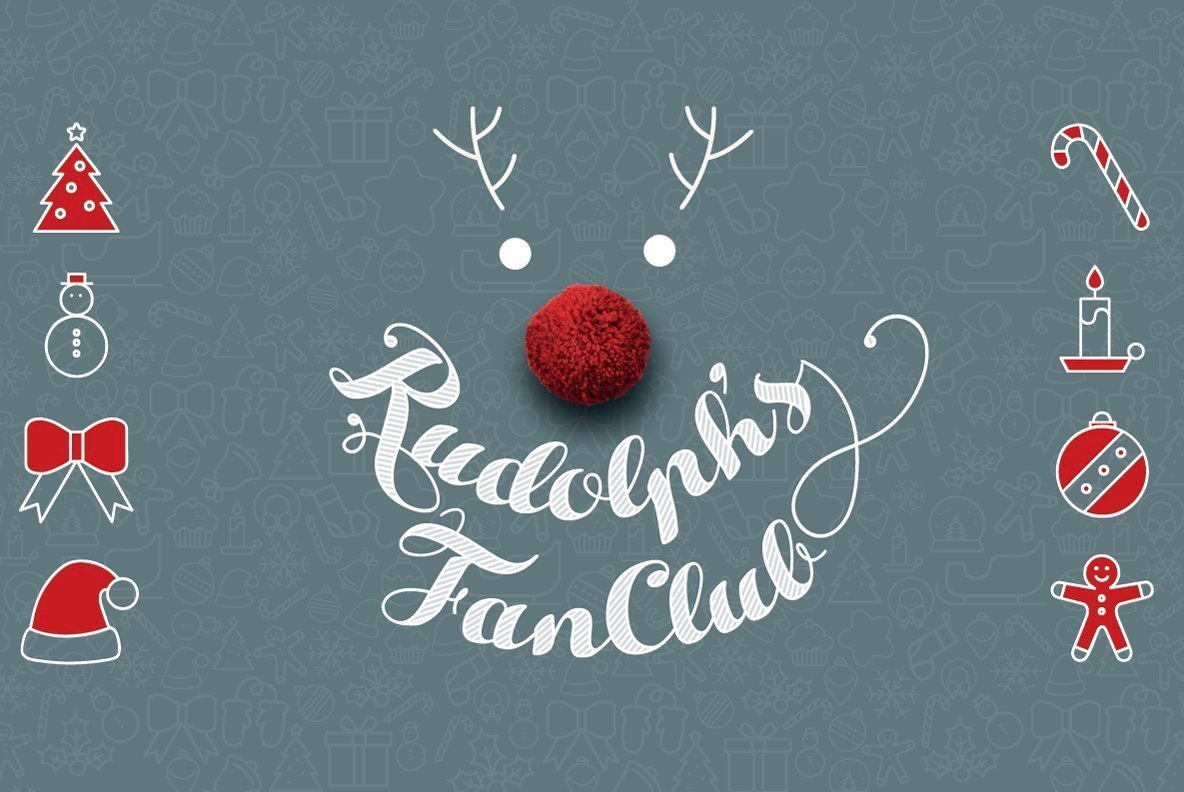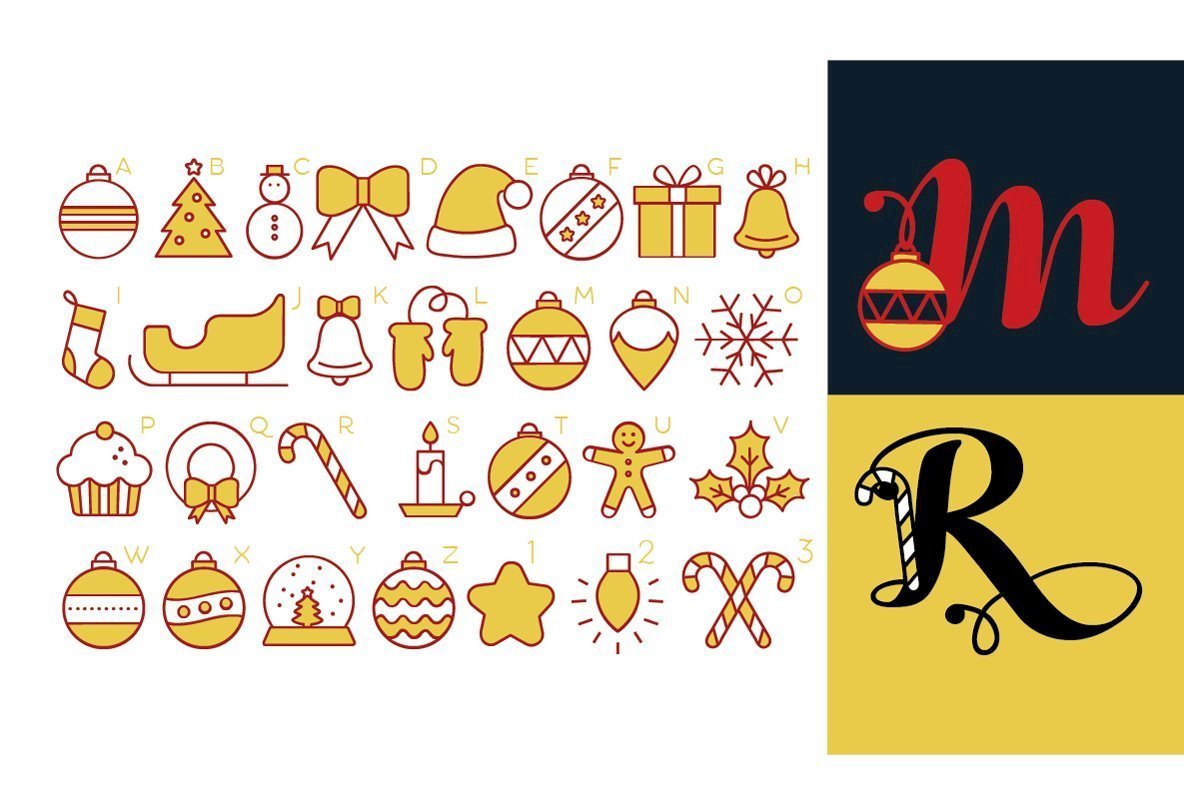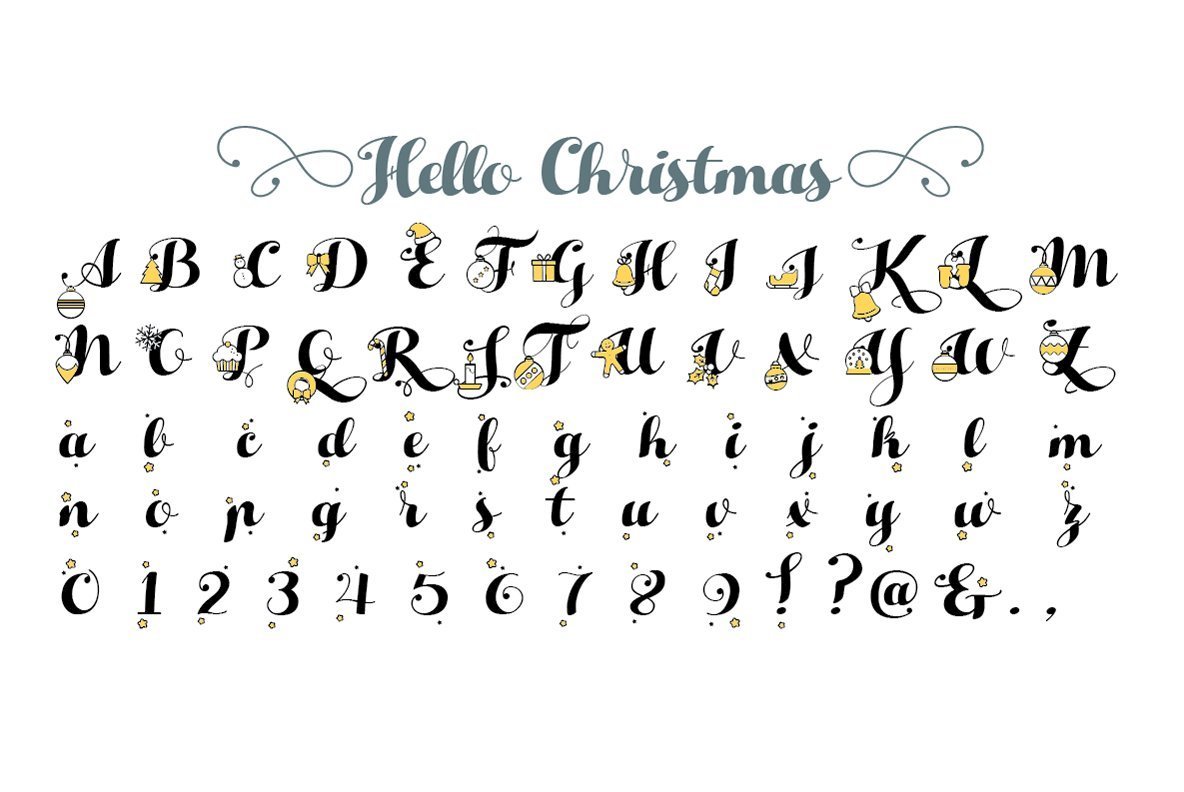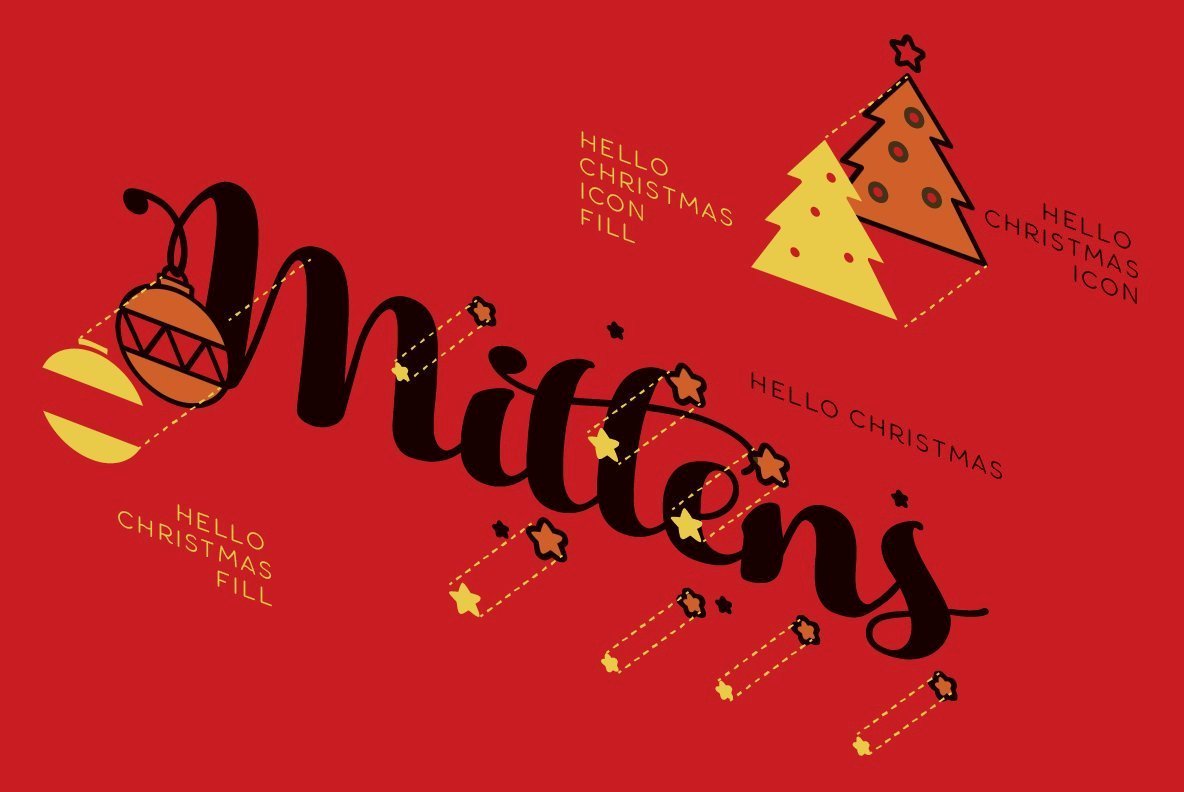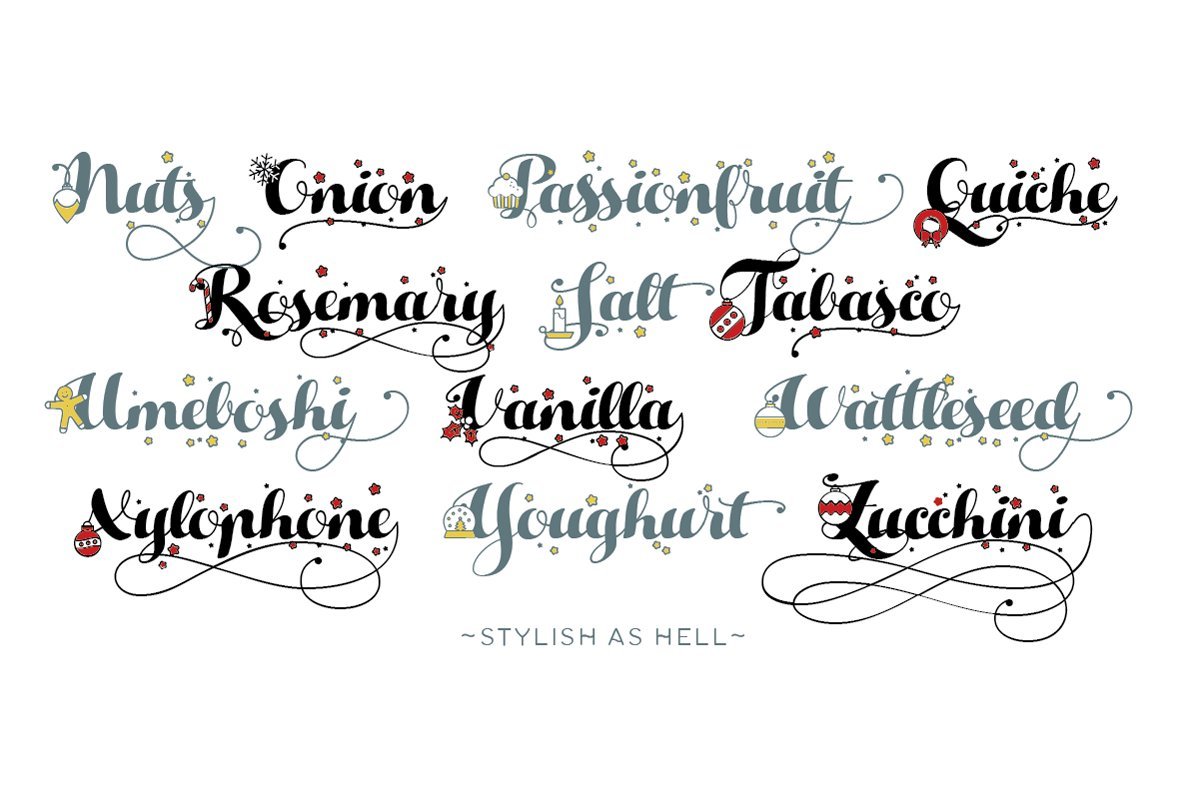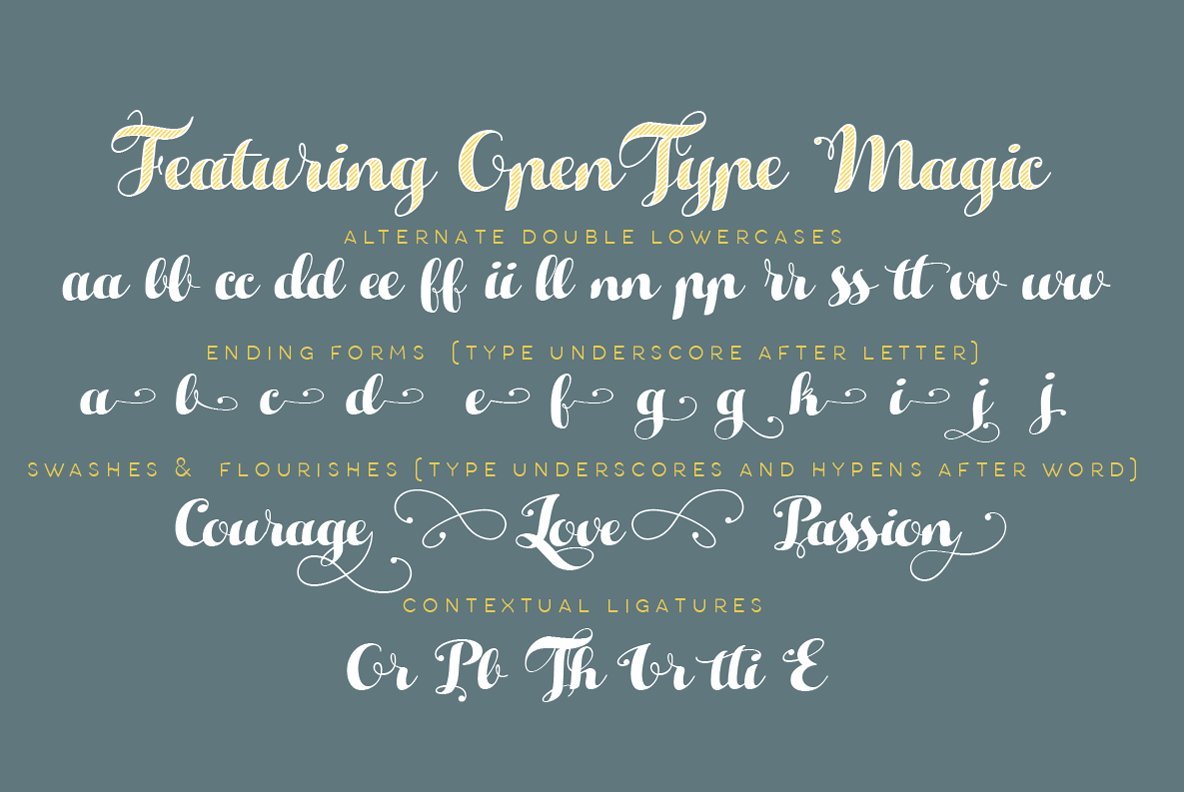
Hello Christmas Font
Hello Christmas is the christmas-themed version of Zetafonts' Hello Script family including a set of Icons (designed by Cristiana Pezzatini), both featuring multilayer color fill. An high contrast calligraphic script designed by Cosimo Lorenzo Pancini, featuring monoline swashes and terminals and strong, round body shapes designed with a parallel nib. It covers over 40 languages that use the Latin alphabet, with full range of accents and diacritics, and comes with over ten different swashes.